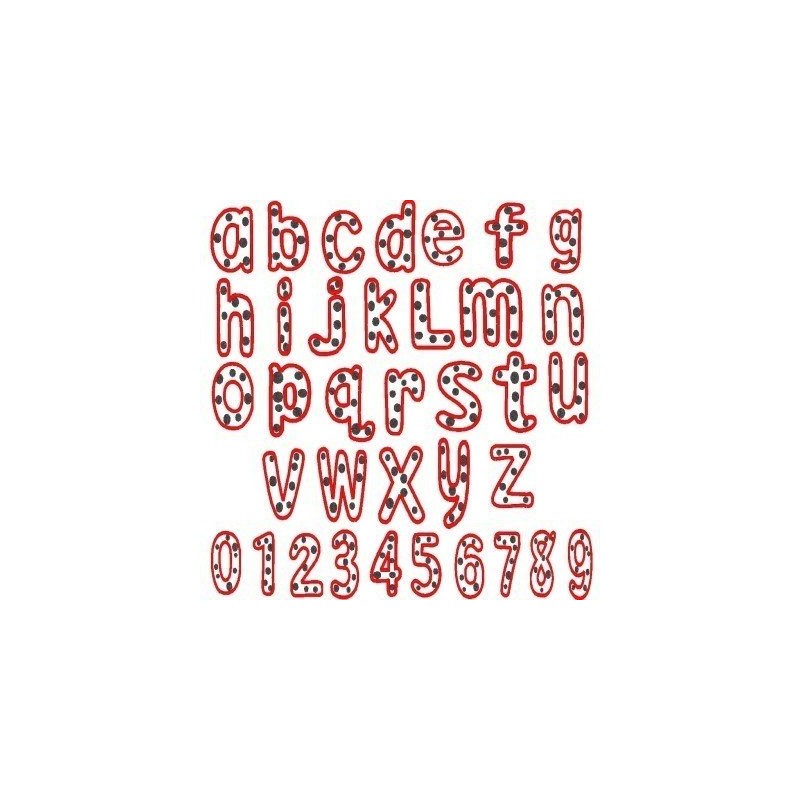
This is a set of Polka Dot fonts.
This set includes A thru Z lower letters and numbers 0-9.
There is two colors and this is fantastic!
Each letter is a satin stitch letter with polka dots in the center letters. Use many color combinations with this font to create awesome projects! These are in the 4 x 4 hoop.